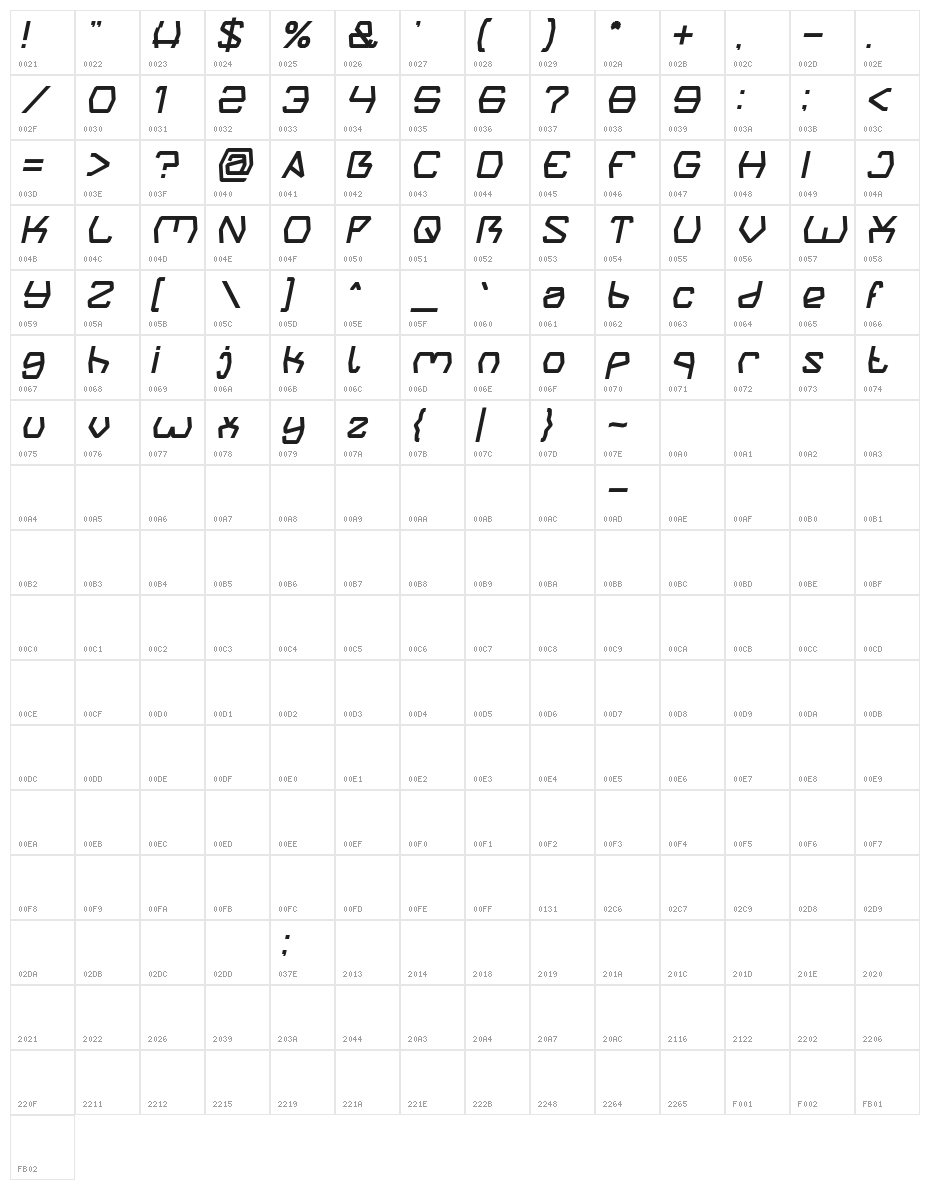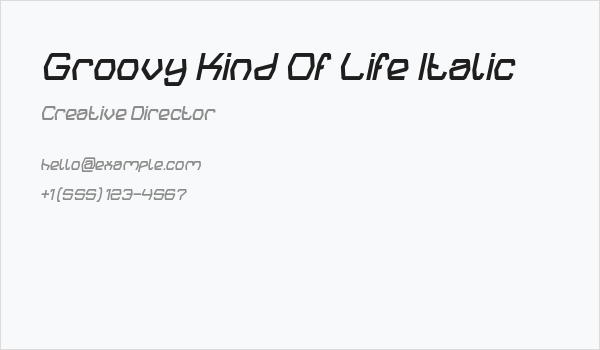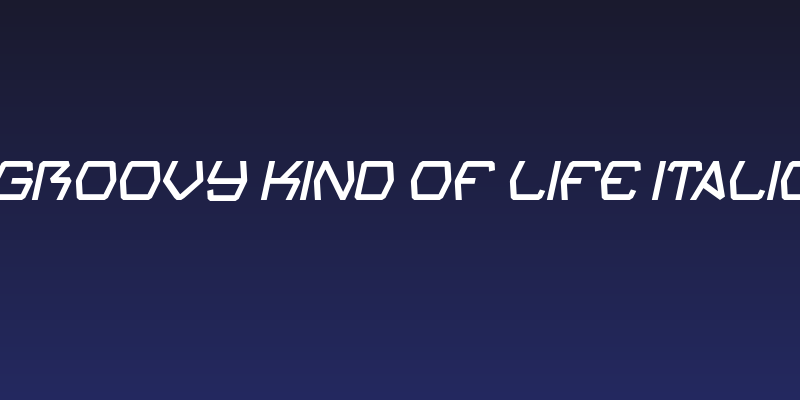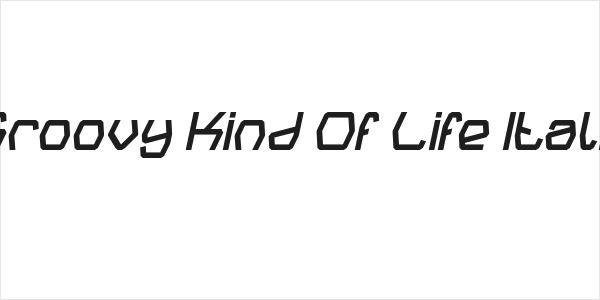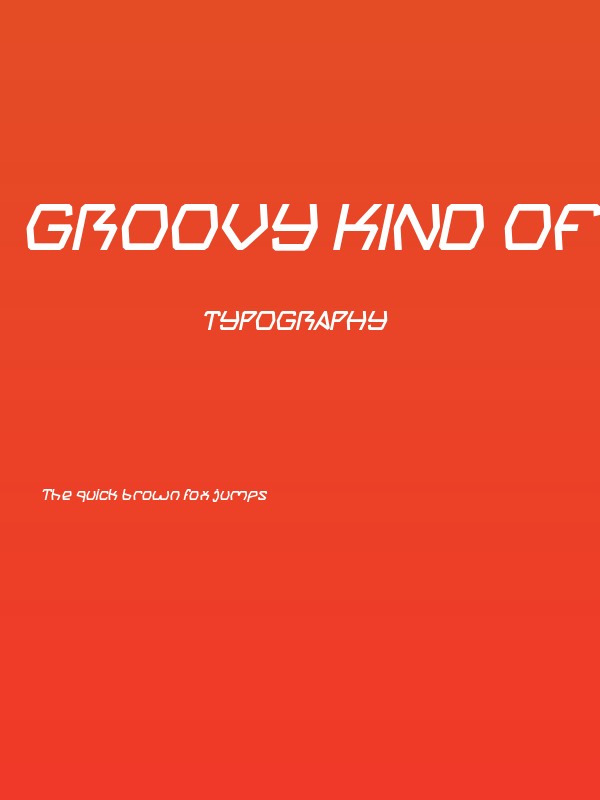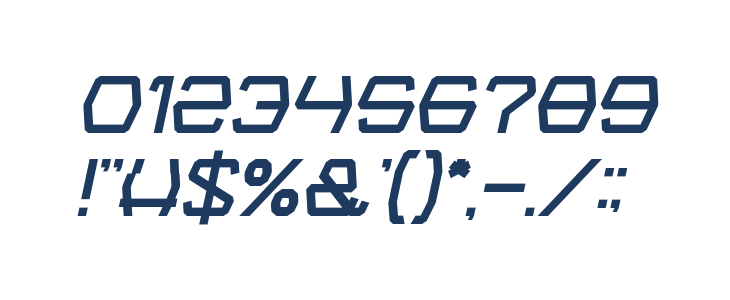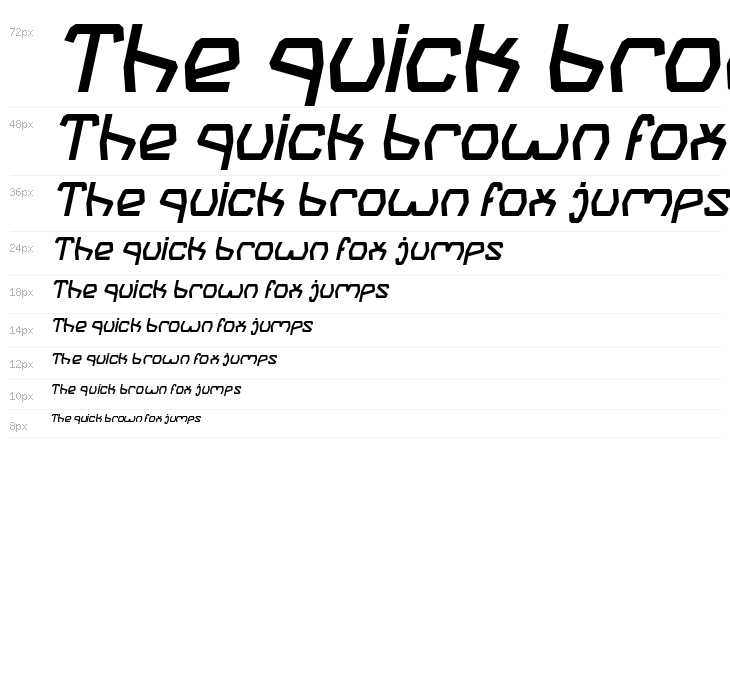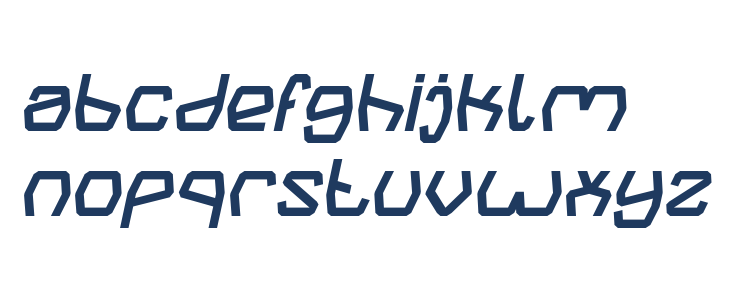
Groovy Kind Of Life Italic Font
Groovy Kind Of Life Italic Description
This font features a unique, angular design with a modern twist. The characters are slightly italicized, giving them a dynamic and forward-leaning appearance. The strokes are bold and consistent, creating a strong visual impact. The geometric shapes of the letters add a futuristic and edgy feel, making it stand out in any design. The uppercase and lowercase letters maintain a uniform style, while the numbers and special characters complement the overall aesthetic. This font is perfect for projects that require a bold statement and a contemporary look.
| Proposed Projects | Ideal for branding, posters, album covers, and any design needing a modern, edgy touch. |